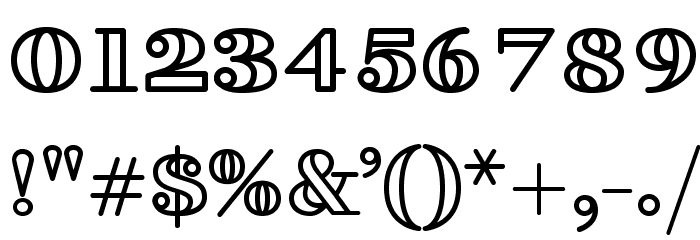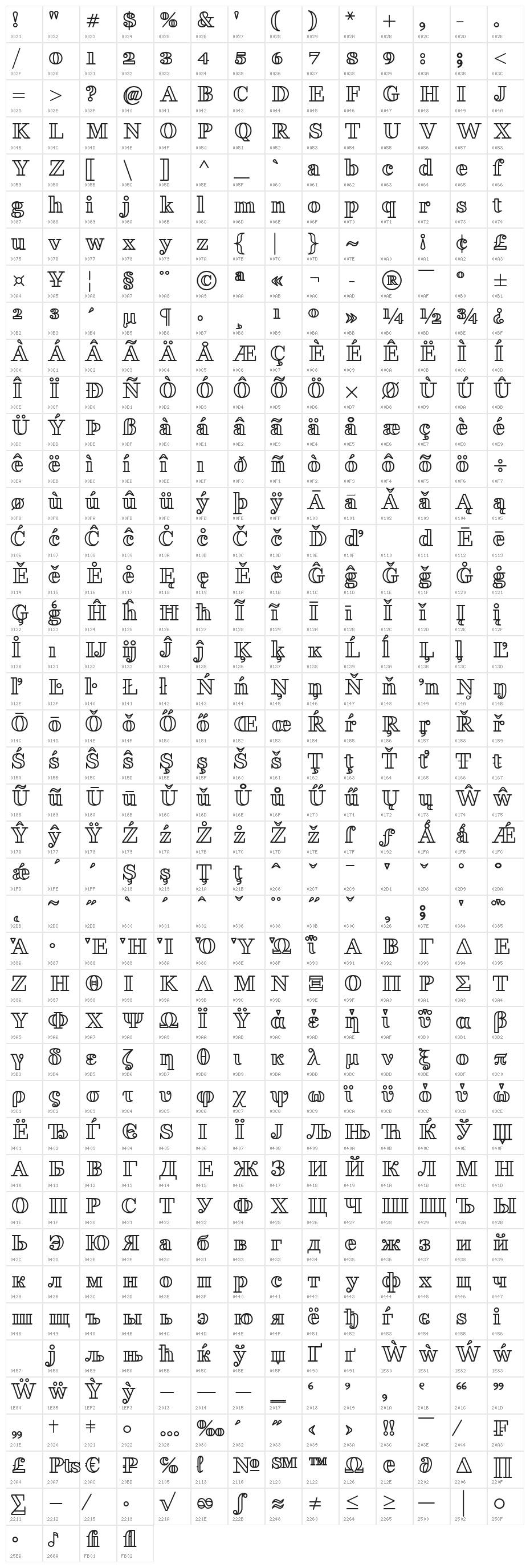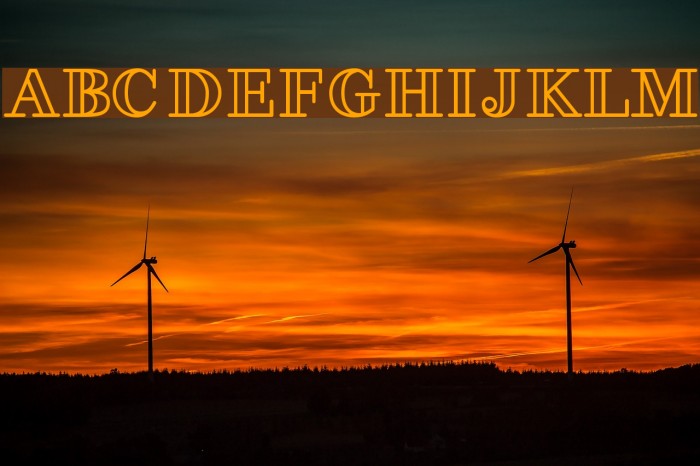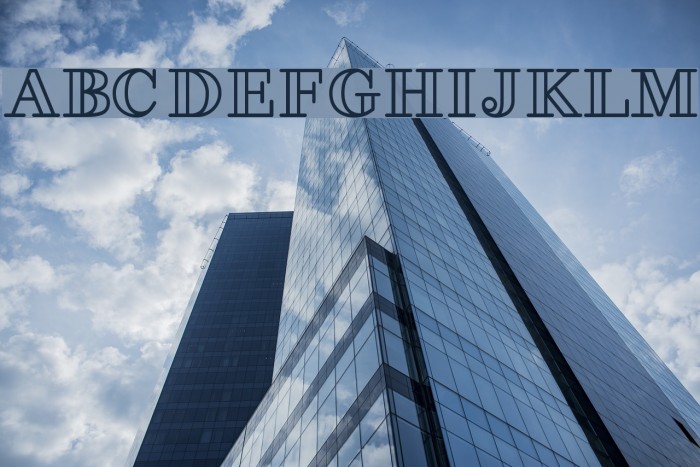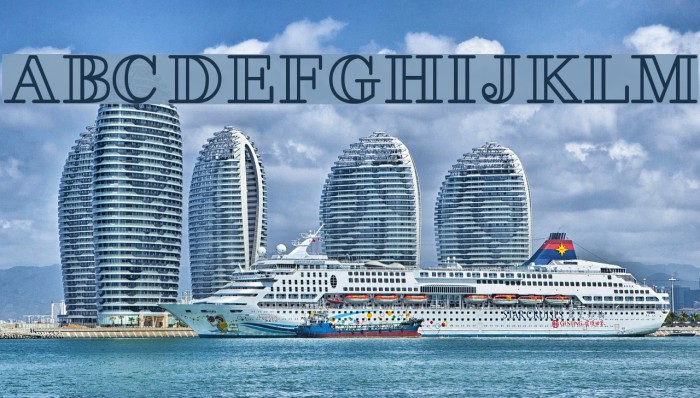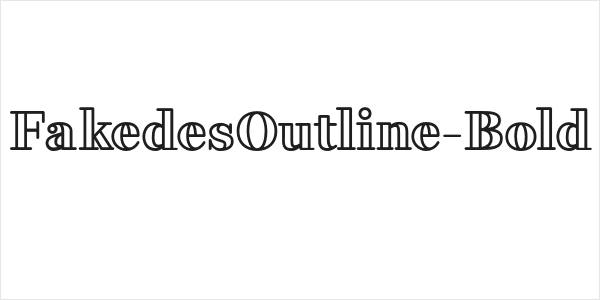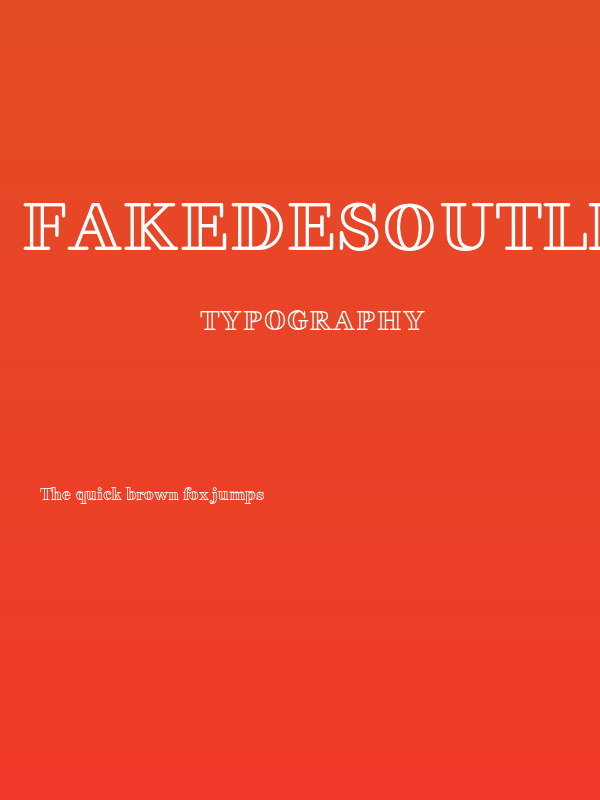
FakedesOutline-Bold Font
FakedesOutline-Bold Description
This font features a bold, outlined style that combines classic serif elements with a modern twist. The uppercase and lowercase letters maintain a consistent outline thickness, creating a striking visual impact. The numerals and special characters follow the same design, ensuring uniformity across all glyphs. The serifs are pronounced, adding a touch of elegance, while the overall structure remains clean and readable. This font's unique outline design makes it stand out, offering a blend of traditional and contemporary aesthetics.
| Proposed Projects | Ideal for branding, poster design, and headlines where a bold statement is needed. |